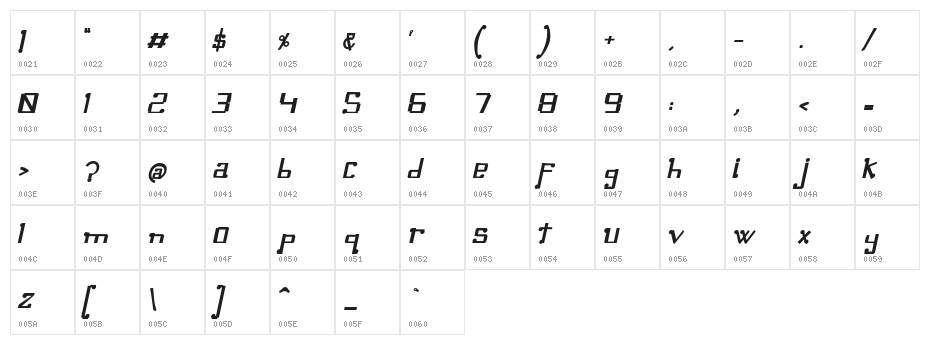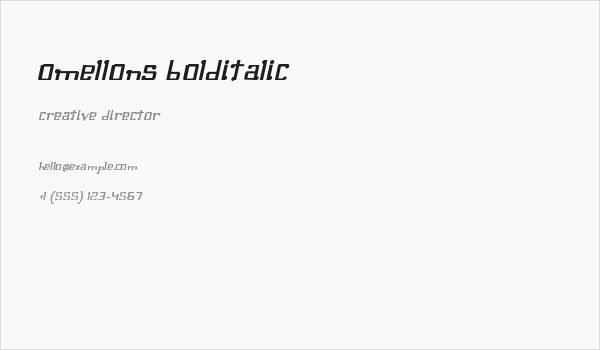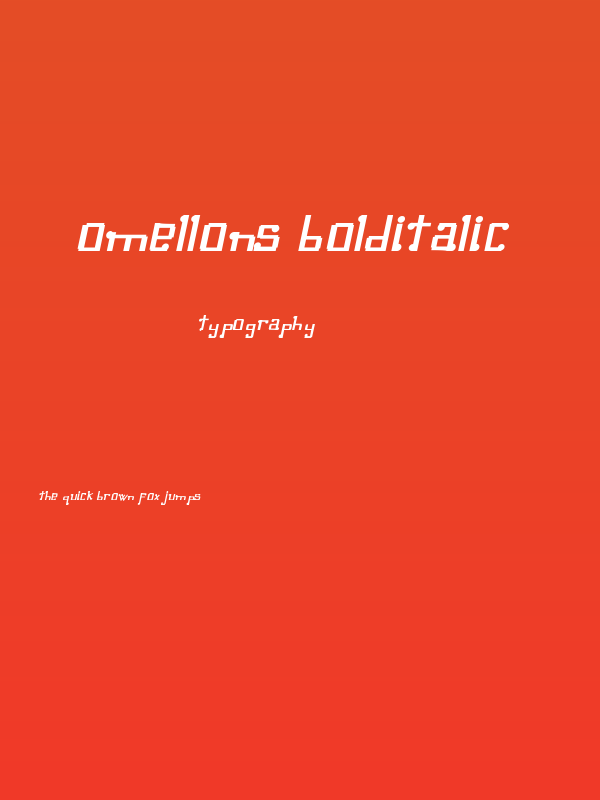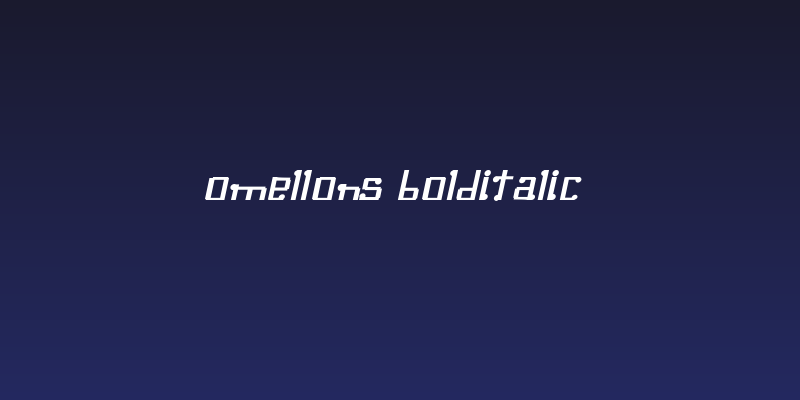
Omellons BoldItalic Font
Omellons BoldItalic Description
This font features a bold and italicized style with a unique, modern twist. The characters are designed with a distinct angularity and sharpness, giving them a futuristic and dynamic appearance. The uppercase and lowercase letters maintain a consistent style, with slightly exaggerated serifs and a slant that adds to the overall italic effect. Numbers and special characters are crafted to match the boldness and angularity of the alphabet, ensuring a cohesive look across all elements. The font's design is both eye-catching and versatile, making it suitable for a variety of creative applications.
| Proposed Projects | Ideal for branding, posters, and digital media where a modern and bold statement is needed. |